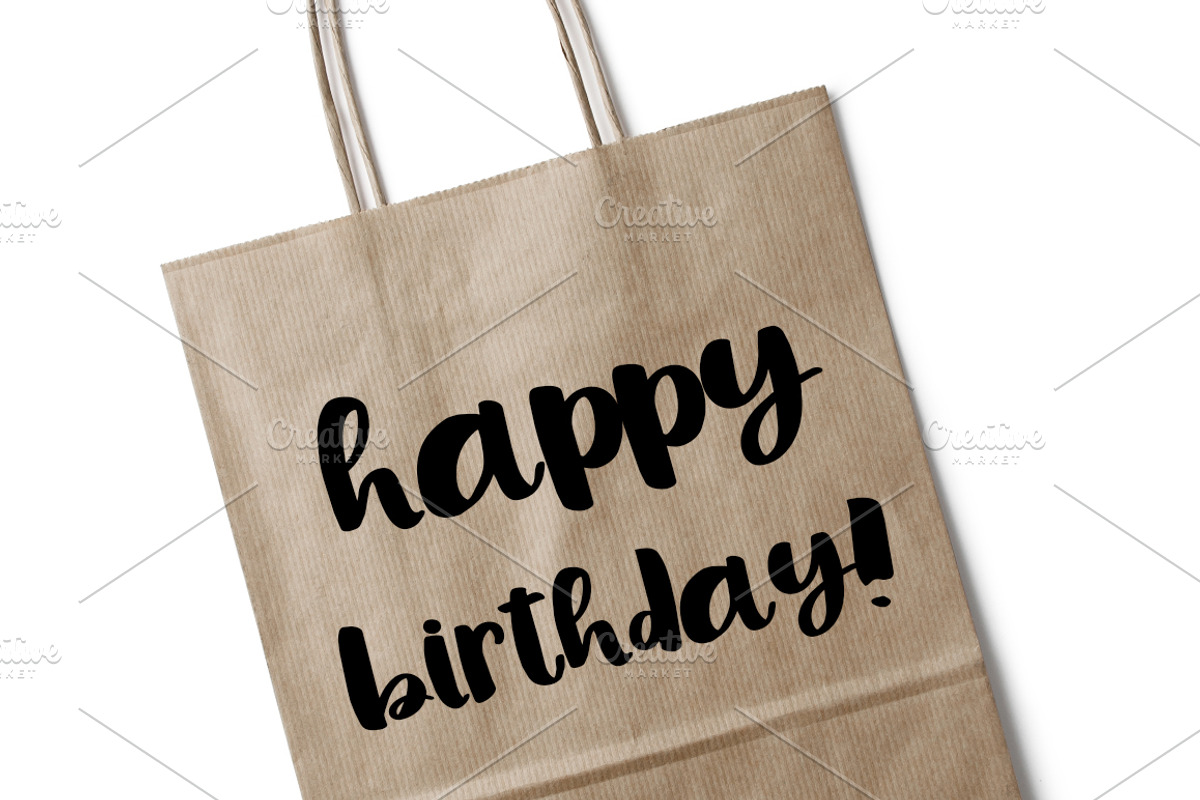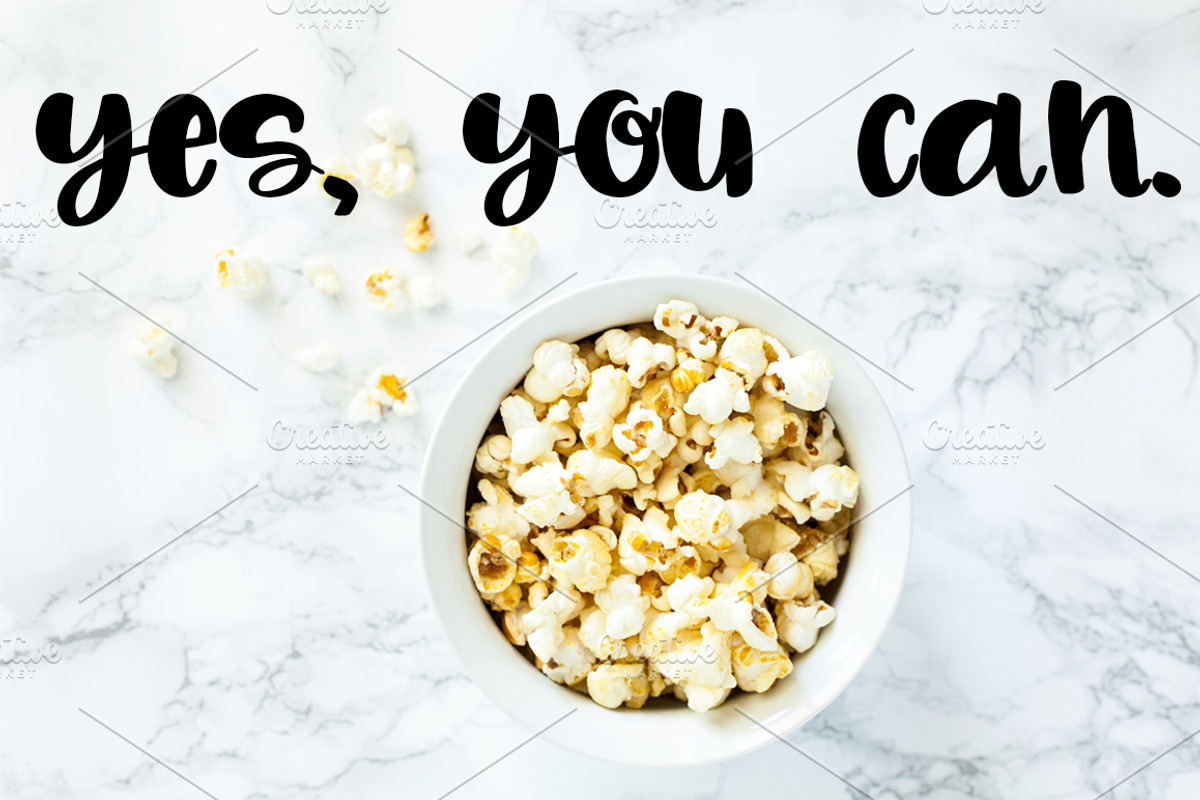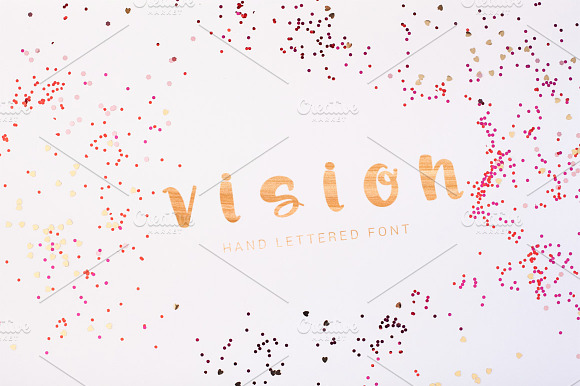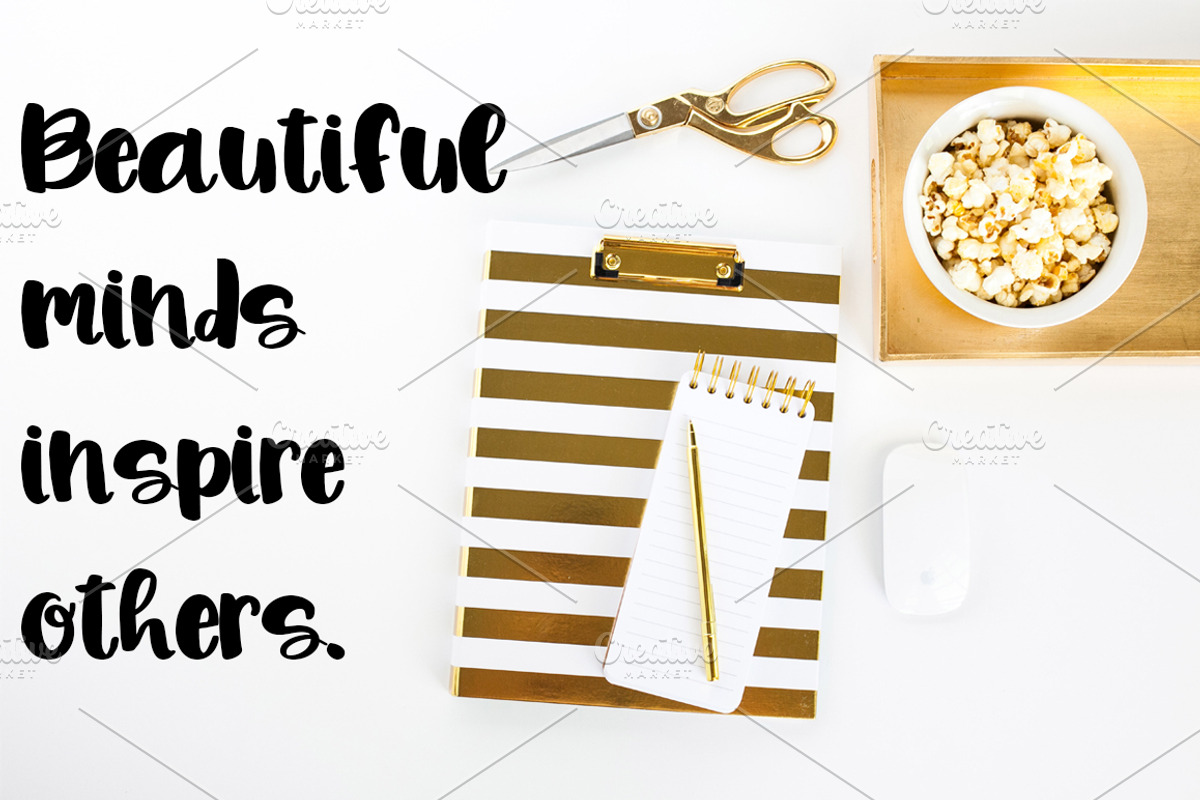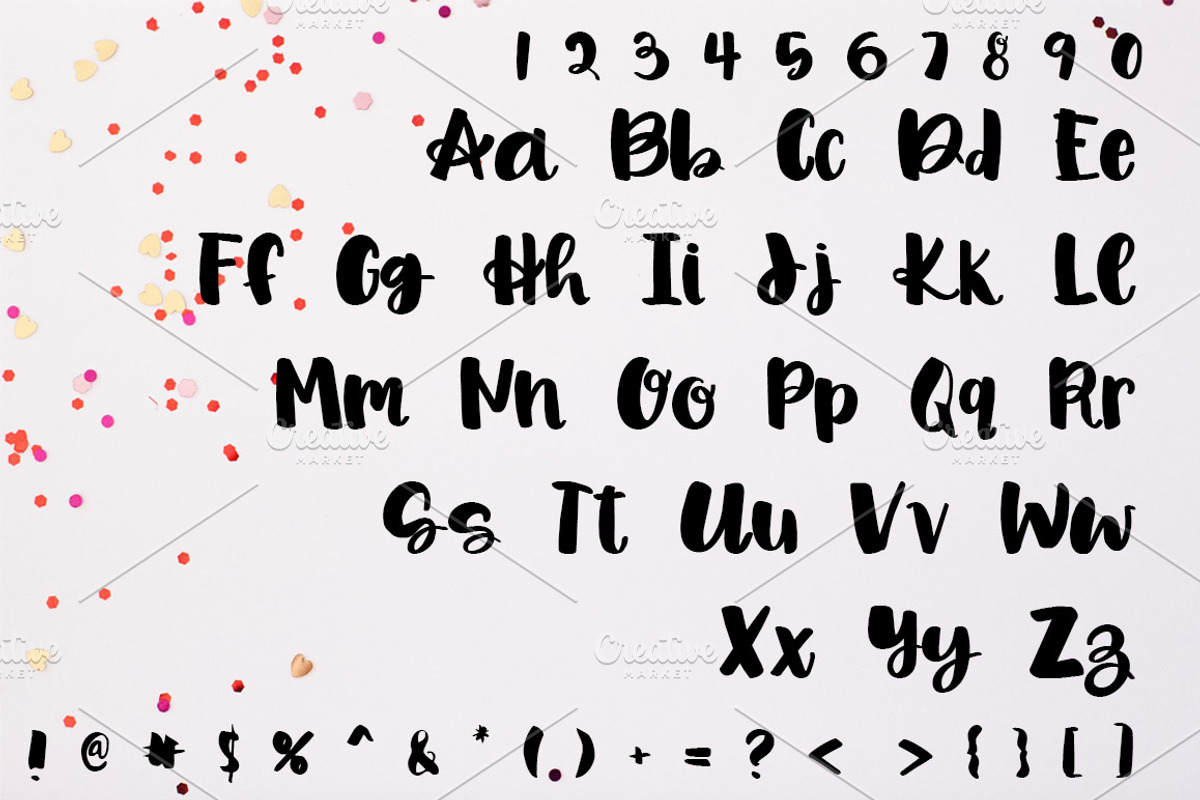
VISION Hand Lettered Font
Meet Vision! Vision is a unique, funky, and beautiful thick script font. This hand lettered beauty is perfect in any context and gives a genuine feel to your next project. Full alphabet, numbers, and symbols.